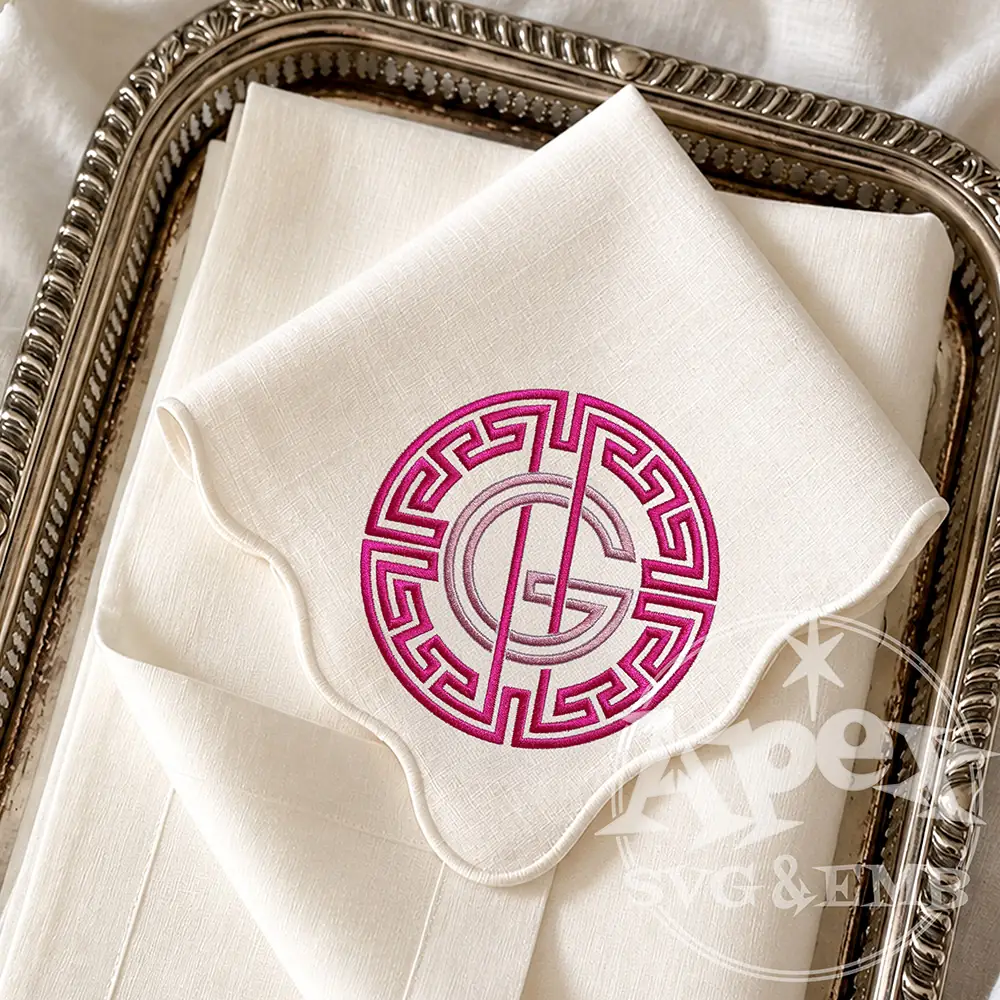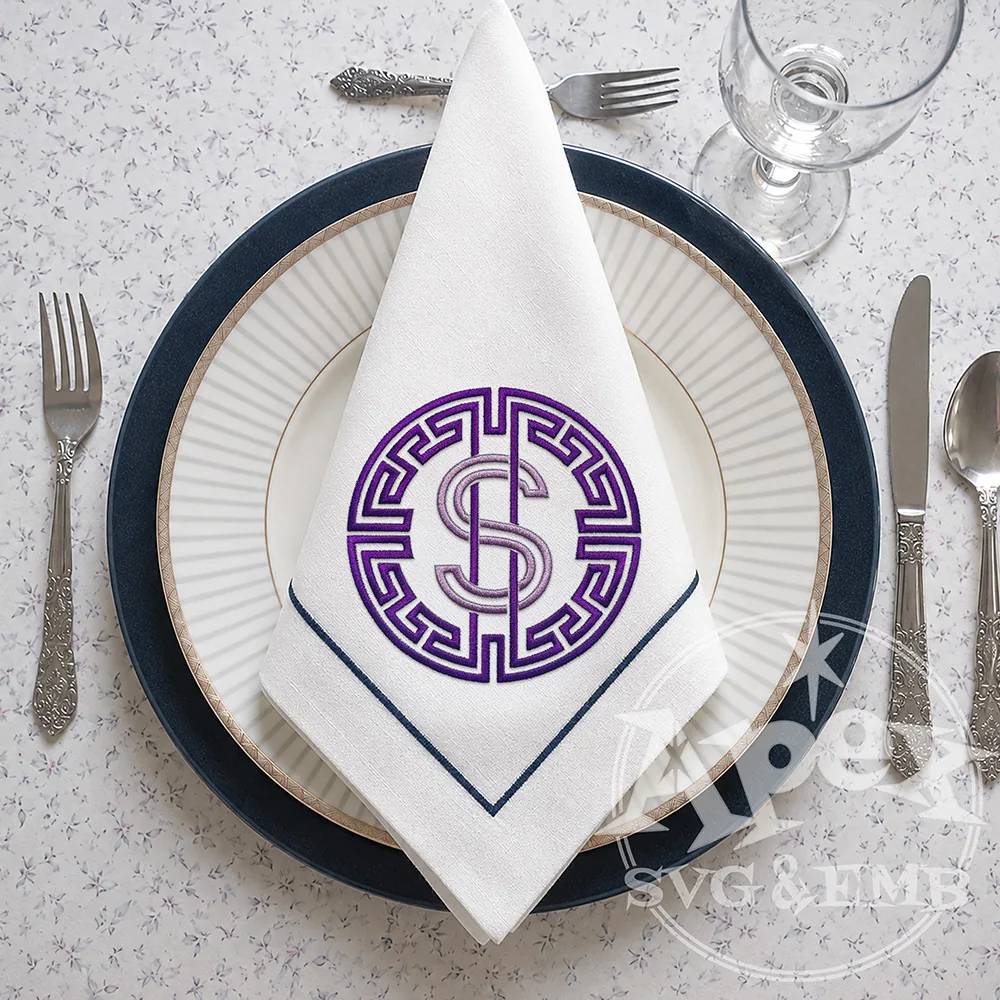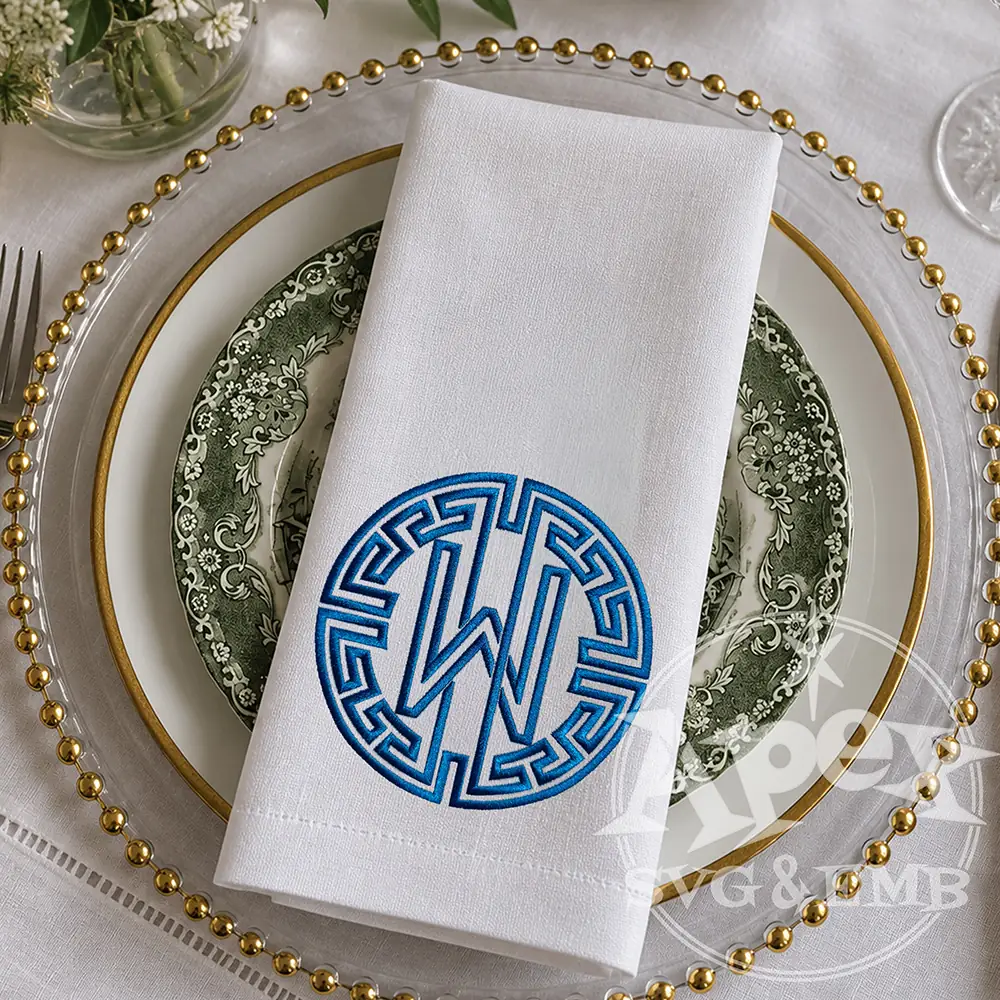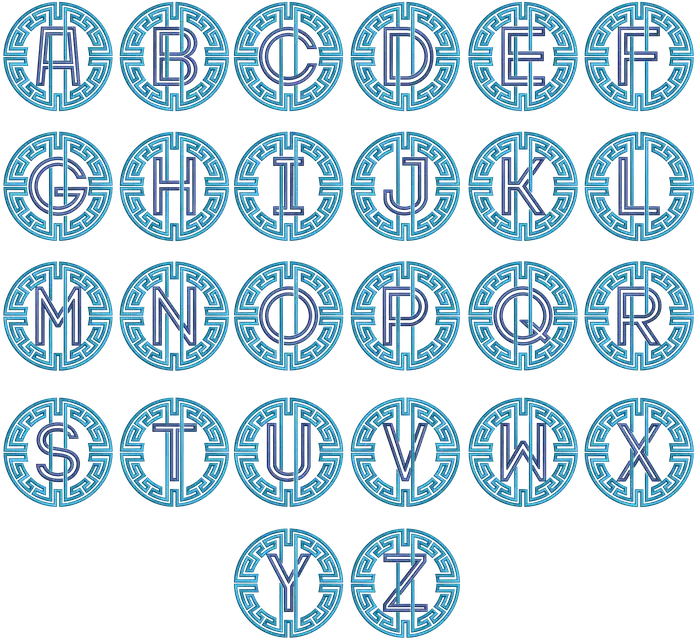
Greek Key Monogram Embroidery Font – Single Letter
Create elegant personalized embroidery with this Greek Key monogram embroidery font featuring a decorative interlocking medallion design. This single-letter embroidery font combines a classic Greek Key pattern with a sophisticated monogram style, making it a beautiful choice for personalized clothing, towels, gifts, bags, linens, and home décor.
Designed for machine embroidery, this Greek Key embroidery font provides a distinctive way to add a single initial to your projects. The interlocking medallion design gives each letter a polished, decorative appearance while keeping the monogram clear and recognizable.
Greek Key Monogram Embroidery Features
Greek Key interlocking medallion design
Single-letter monogram embroidery font
A–Z alphabet
Elegant and legible design
Satin-stitch embroidery
Perfect for Personalized Embroidery
Elegant Interlocking Greek Key Design
The Greek Key pattern is known for its repeating geometric design. Here, it is incorporated into an interlocking medallion monogram, creating a classic decorative initial that works especially well for personalized gifts and elegant embroidery projects.
Whether you're creating a monogrammed wedding gift, adding an initial to a towel, or creating personalized boutique products, this Greek Key single-letter embroidery font adds a refined finishing touch.
Create Personalized Greek Key Monograms
Add a classic Greek-inspired look to your next embroidery project with this interlocking Greek Key monogram font. With single initials, multiple sizes, and a decorative medallion design, it is a versatile choice for personalized gifts, apparel, linens, accessories, and home décor.